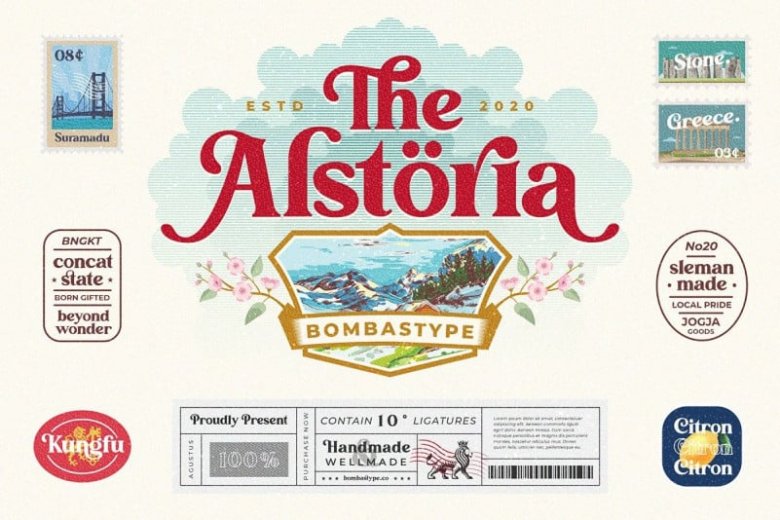
Alstoria Serif Font Free
Alstoria Serif Font is a delightful, modern take on a vintage font. Packed with plenty of alternates and ligatures to really bring it to life! Made from font designer named bombastype.
It’s a Bold Display Serif font. Suitable for your projects like branding, packaging, printing, header, and many more. Contains 320+ glyphs and 10 ligatures. This font also contains many swash alternates option to play. Works well for vintage and modern style like you see in our preview images.